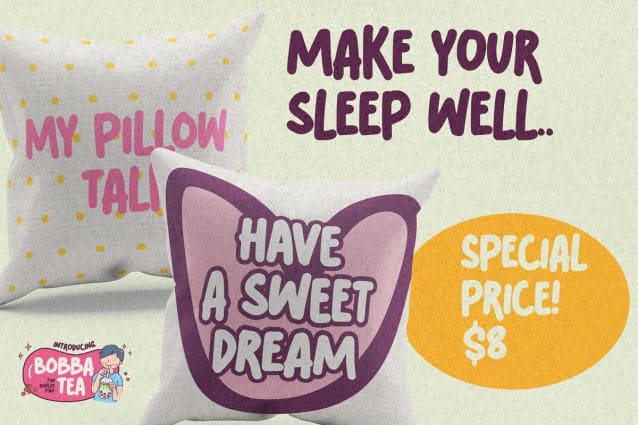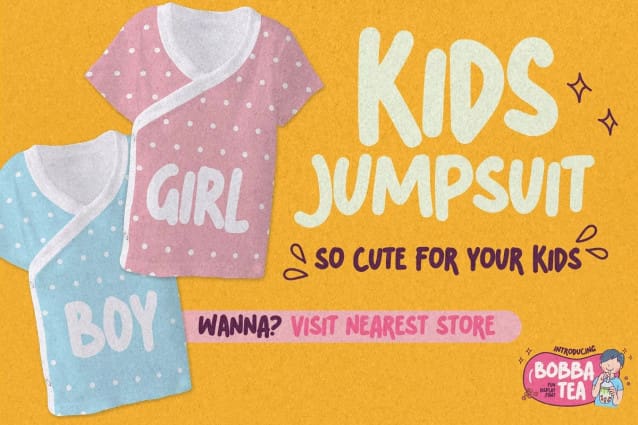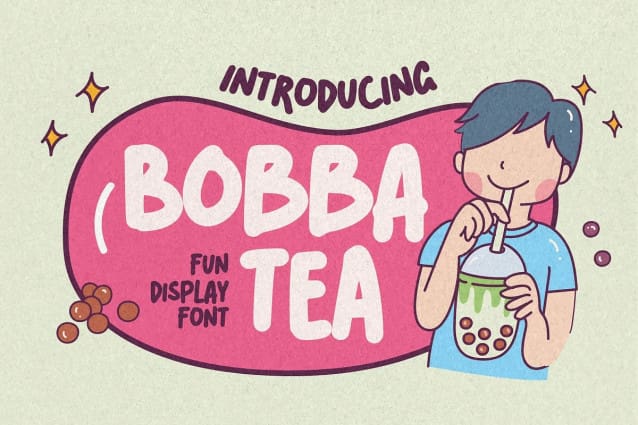
Bobba Tea Font
Bobba Tea Font a natural funny Hand Drawn feel. This handmade font will make your design has a beautiful natural touch for each details. It is perfect for any design project as Invitation,logo, book cover, craft or any design purposes,photos, photography overlays, signs, window art, scrapbooking, tags and so much more! Inspired by Food Logo style and combination with Cute Craft style. that will fulfill your design needs for quotes,sporty theme, logotype, wordmark, etc. This has many opentype features and support multi language. This font is PUA encoded which means you can access all of Alternates glyphs.